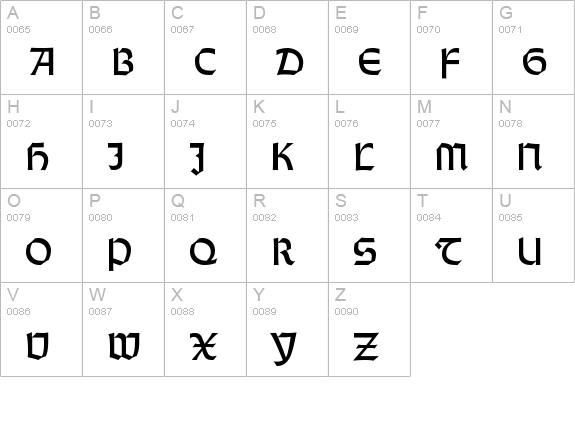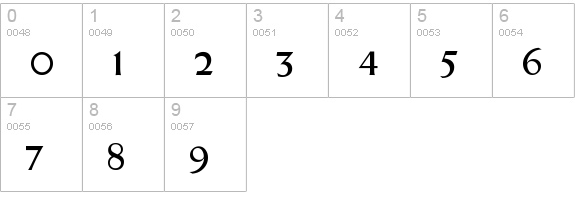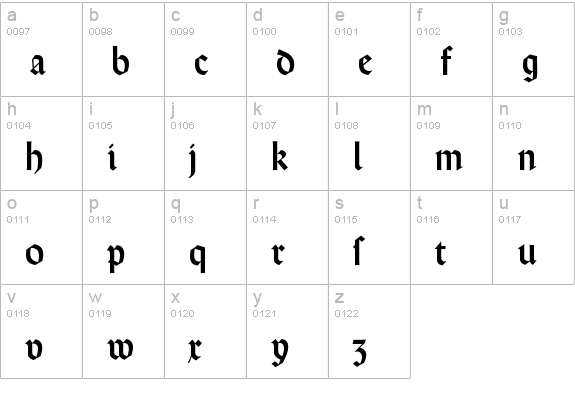
WeissRunD Font Details
Introducing WeissRunD, a captivating and versatile font that will elevate your designs to new heights. This unique typeface showcases a perfect balance between elegance and modernity, making it suitable for a wide range of creative projects. WeissRunD boasts a distinctive aesthetic with its sleek lines and refined curves, capturing attention and leaving a lasting impression. Its carefully crafted letterforms provide excellent legibility, ensuring that your message will be effortlessly conveyed to your audience. Whether you are designing a logo, branding materials, invitations, or any other creative endeavor, WeissRunD offers an extensive character set that includes uppercase and lowercase letters, numbers, punctuation marks, and special characters. This comprehensive set allows for endless possibilities and allows you to unleash your creativity without limitations. One of the most remarkable aspects of WeissRunD is that it is free to download, making it a valuable resource for both personal and commercial projects. You can easily obtain this font at FontsMarket.com, a reputable platform that offers a vast collection of high-quality fonts. With just a few clicks, you can enhance your designs with this remarkable typeface and take your creations to the next level. Don't miss the opportunity to add WeissRunD to your font collection. Its timeless elegance and versatility make it a must-have for any designer or creative individual seeking to make a lasting impact. Download it for free today at FontsMarket.com and let your imagination run wild with endless possibilities.